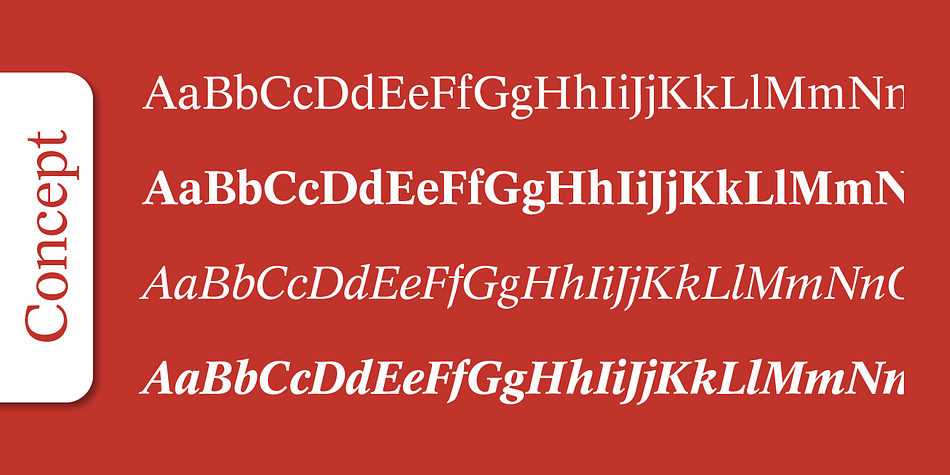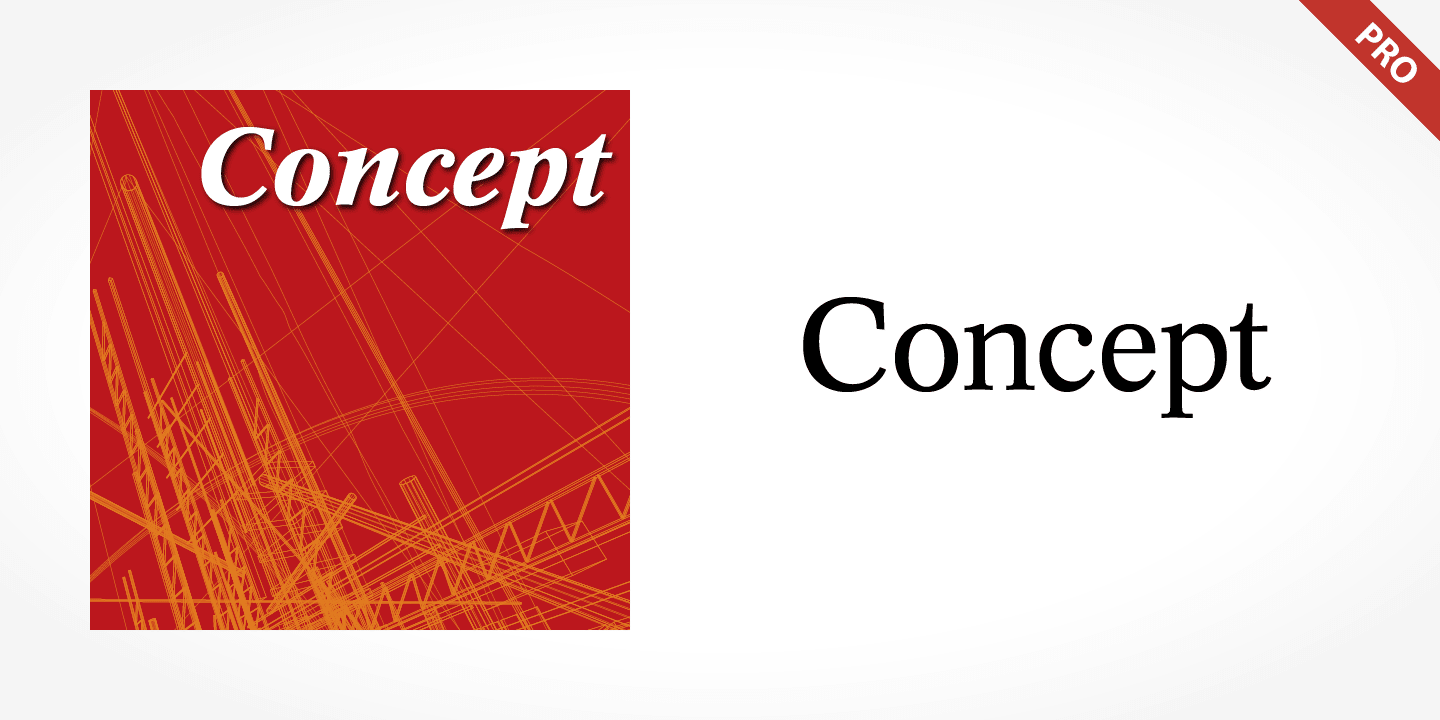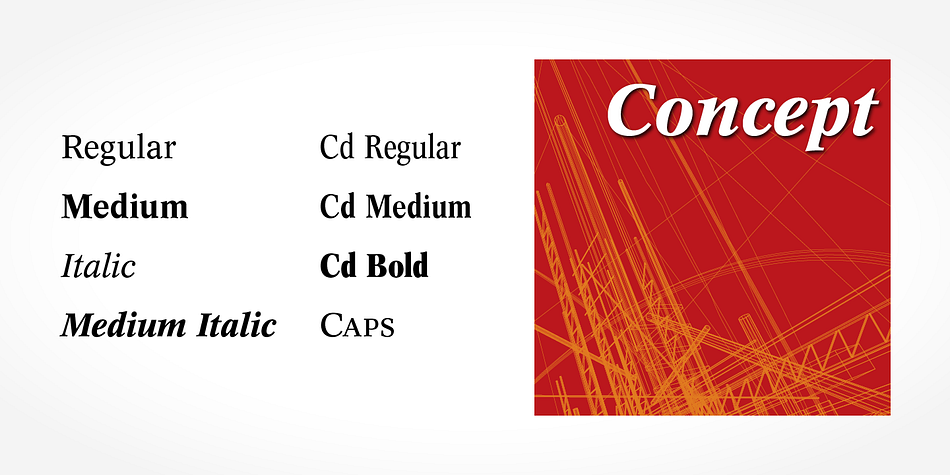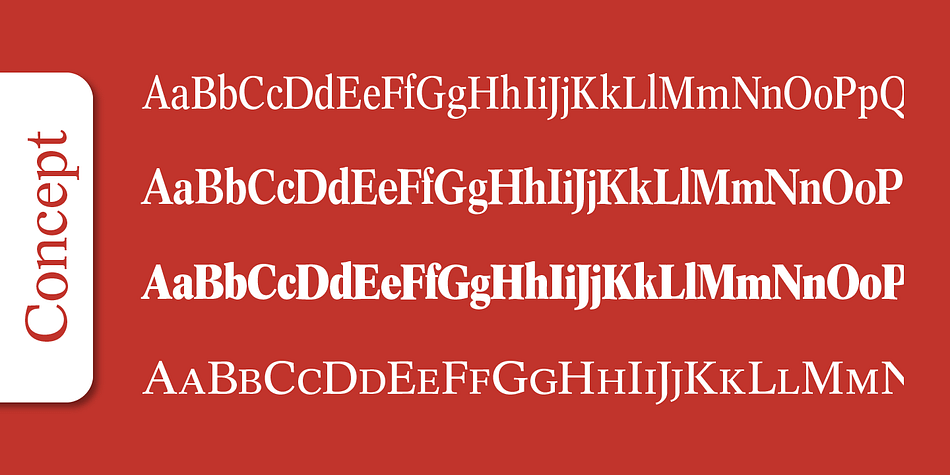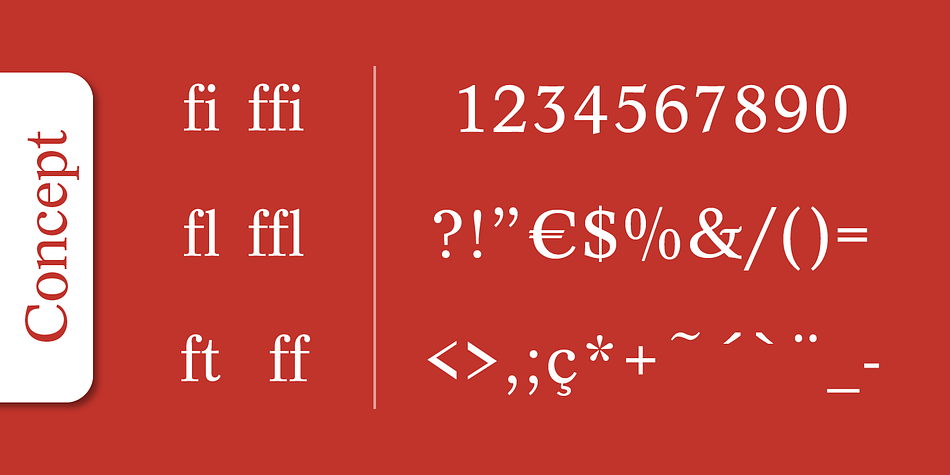
Concept Pro
Concept Pro is a serif font family. This typeface has eight styles and was published by SoftMaker.
Concept Pro has a contemporary design and is a highly legible typeface well-suited for large bodies of text. It offers an excellent alternative to Times New Roman.